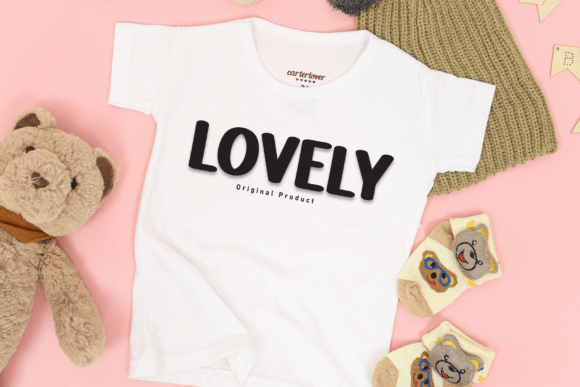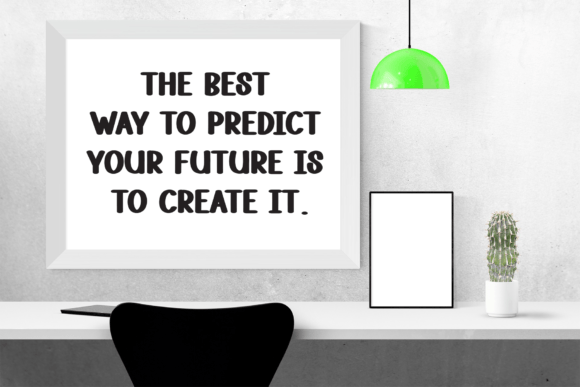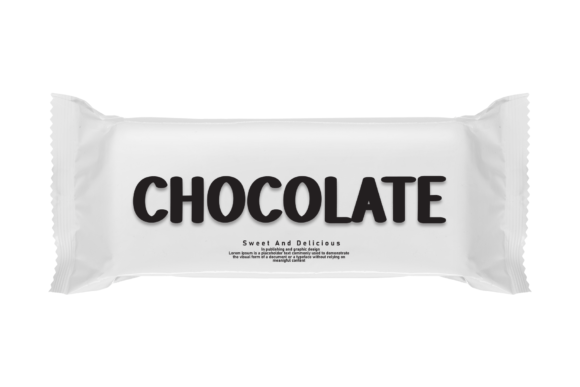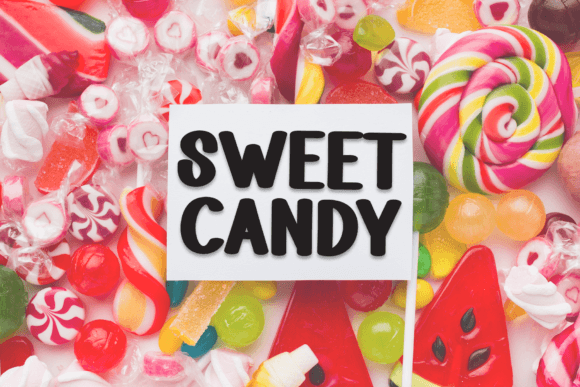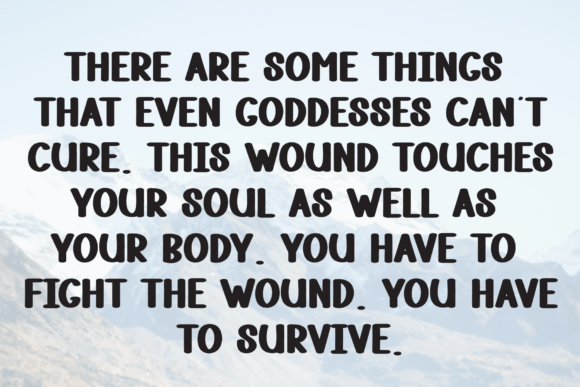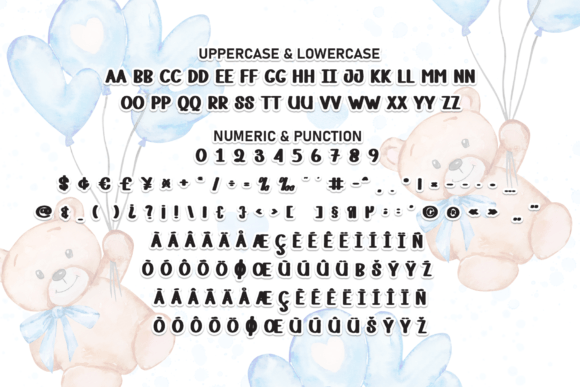
Baby Bear Font: The Ultimate Display Font for Sweet and Playful Designs
Are you looking for a font that can add a touch of magic to your designs? Look no further than the Baby Bear Font, an enchanting handwritten display font that is filled with sweetness and friendliness at every curve and pint. This playful and delightful font radiates an irresistible allure that captivates the eyes and hearts, making it perfect for a variety of design projects.
The Charm of Baby Bear Font
The Baby Bear Font is a unique and charming font that is designed to bring a splash of fun and lighthearted sophistication to your designs. With its playful and whimsical curves, this font is sure to delight audiences of all ages. Whether you’re crafting spellbinding wedding invitations, endearing cards, or any design that craves a touch of personality, the Baby Bear Font is the perfect choice.
The Baby Bear Font is a versatile font that can be used for a wide range of design projects. Here are just a few ideas to get you started:
- Wedding Invitations: Add a touch of romance and whimsy to your wedding invitations with the Baby Bear Font. This font is perfect for creating beautiful and unique wedding stationery that will set the tone for your special day.
- Cards and Greeting Cards: The Baby Bear Font is perfect for creating endearing cards and greeting cards for any occasion. Whether you’re sending a birthday greeting or a get-well message, this font is sure to bring a smile to the recipient’s face.
- Children’s Designs: The playful and whimsical nature of the Baby Bear Font makes it perfect for children’s designs, such as children’s book titles, nursery rhymes, and kids’ party invitations.
- Branding and Packaging: The Baby Bear Font can also be used for branding and packaging projects, such as product labels, packaging, and marketing materials.
The Benefits of Using Baby Bear Font
There are many benefits to using the Baby Bear Font in your designs. Here are just a few:
- Unique and Eye-Catching: The Baby Bear Font is a unique and eye-catching font that is sure to stand out in any design.
- Playful and Whimsical: This font has a playful and whimsical nature that is perfect for adding a touch of fun and personality to your designs.
- Easy to Read: Despite its playful nature, the Baby Bear Font is easy to read and understand, making it perfect for use in a variety of design projects.
- Versatile: The Baby Bear Font can be used for a wide range of design projects, from wedding invitations to children’s designs.
How to Use Baby Bear Font
Using the Baby Bear Font in your designs is easy. Here are a few tips to get you started:
- Pair with Other Fonts: The Baby Bear Font can be paired with other fonts to create a unique and interesting design.
- Experiment with Colors: The Baby Bear Font looks great in a variety of colors, so don’t be afraid to experiment and find the perfect color for your design.
- Use in Combination with Images: The Baby Bear Font can be used in combination with images to create a beautiful and eye-catching design.
The Baby Bear Font is a unique and enchanting handwritten display font that is perfect for adding a touch of sweetness and friendliness to your designs. With its playful and whimsical nature, this font is sure to delight audiences of all ages. Whether you’re crafting spellbinding wedding invitations, endearing cards, or any design that craves a splash of fun, the Baby Bear Font is the perfect choice. So why wait? Unleash the magic of creativity and experience a font that isn’t just letters but a celebration of visual poetry.
Experience the Magic of Baby Bear Font